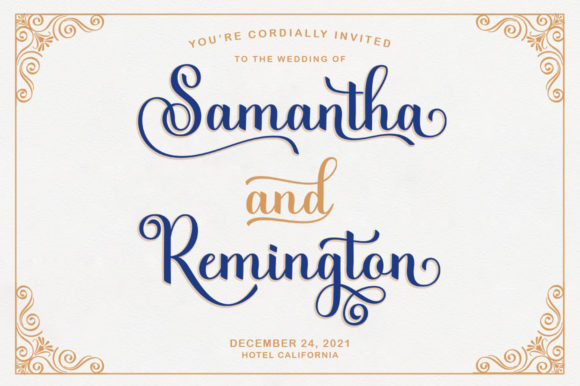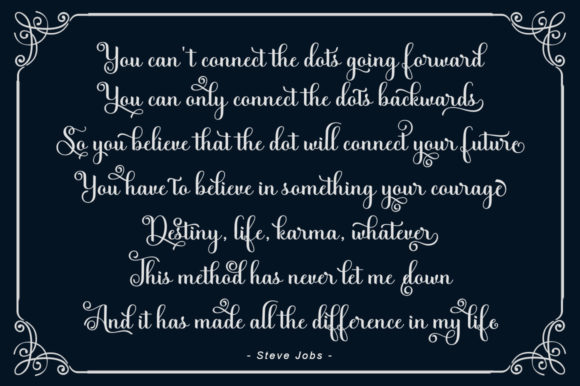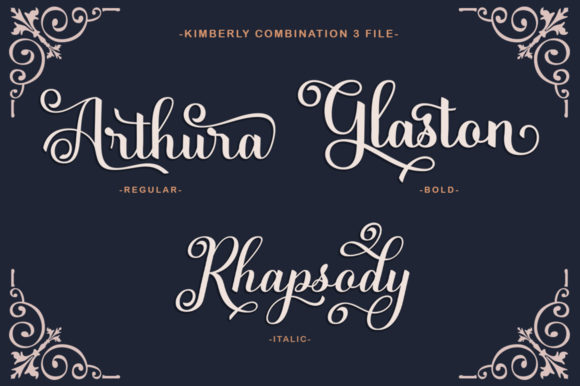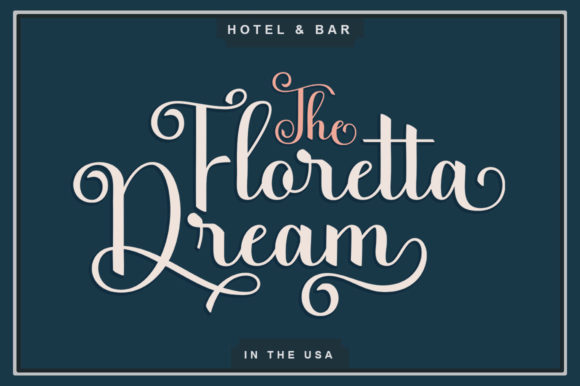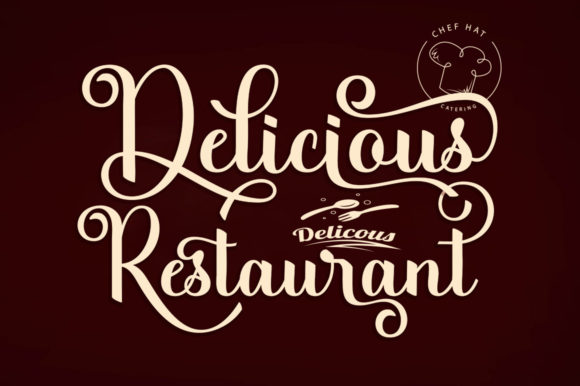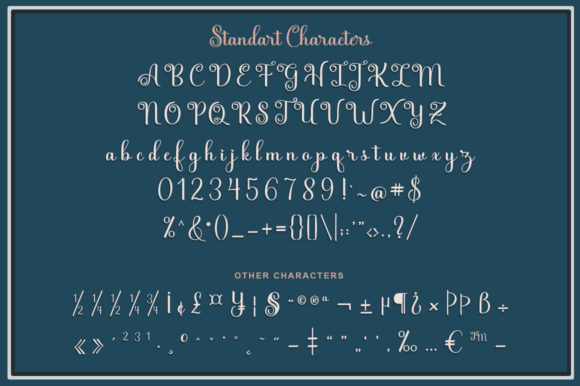
The Perfect Script for Your Next Design Project
Have you ever stared at a blank page, trying to find the perfect font to capture the essence of your idea? It’s a familiar feeling for many designers – the struggle to find that one special font that elevates your project from good to great. For me, it’s like searching for the perfect shade of paint to match a beautiful sunset. But what if I told you that I’ve found a font that has been making designers swoon?
Enter the Kimberly Script Font, a chic, refined script font that exudes sophistication and elegance. With its stylish alternates and ligatures, this font is the perfect match for any project that demands a touch of luxury and refinement. Whether you’re designing a wedding invitation, a luxury brand logo, or a high-end magazine, the Kimberly Script Font is sure to impress.
Kimberly Script Font Key Features
- Font Style: Script, Calligraphy
- Unique Characteristics: Elegant, cursive, and flowing script style; ideal for wedding invitations, greeting cards, and other creative projects
- Language Support: Multilingual support, including Latin-based languages, Cyrillic, and Greek
Kimberly Script Font Review
As a designer, I was excited to try out the Kimberly Script Font. Overall, I found it to be a beautiful and elegant font that can add a touch of sophistication to any design project.
- The Kimberly Script Font is highly legible, making it perfect for use in body text.
- The font is highly customizable, with a wide range of OpenType features that allow for advanced typography.
- The script style is elegant and refined, making it perfect for use in high-end branding and marketing materials.
- The font may be too ornate for use in large blocks of text, as it can be overwhelming and difficult to read.
- The font is not suitable for use in digital applications where clarity and readability are essential.
Overall, I would recommend the Kimberly Script Font for use in specific situations where elegance and sophistication are required. However, it’s not a good choice for use in general body text or digital applications.
The Kimberly Script Font is ideal for creating elegant and sophisticated designs, making it perfect for:
Wedding invitations, stationery, and event materials
Food and beverage branding, packaging, and marketing materials
Stationery, business cards, and personal branding materials
Remember to experiment with different font sizes, colors, and styles to get the most out of the Kimberly Script Font.
Alternatives to Kimberly Script Font
Playfair Display is a high-end, elegant serif font that is perfect for luxury brands, invitations, and high-end publications. It has a classic feel and features intricate details. Compared to Kimberly Script Font, Playfair Display has a more formal and sophisticated look.
Great Vibes is a beautiful, modern script font that is ideal for creative projects, branding, and advertising. It has a friendly and approachable feel. Compared to Kimberly Script Font, Great Vibes has a more relaxed and casual look.
Carolyna Pro is a modern script font that is perfect for fashion, beauty, and lifestyle brands. It has a luxurious feel and features elegant swashes. Compared to Kimberly Script Font, Carolyna Pro has a more contemporary and edgy look.